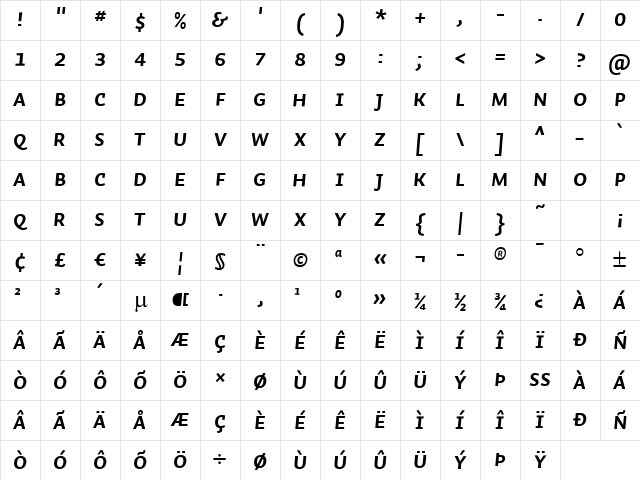
Auto 1 Bold Italic SmCp
Style: Bold Italic SmCp
Auto 1 Family
Auto 1 Bold Italic SmCp
Design Context for Auto 1
Auto 1 is a composed and adaptable typeface that performs quietly and consistently across a wide range of design contexts. The slanted form adds forward momentum and visual energy. Its bold stroke weight gives it real presence on the page.
Pro Tip: Use Auto 1 for emphasis, pull quotes, and subheadings where its slanted energy can add rhythm to the layout.